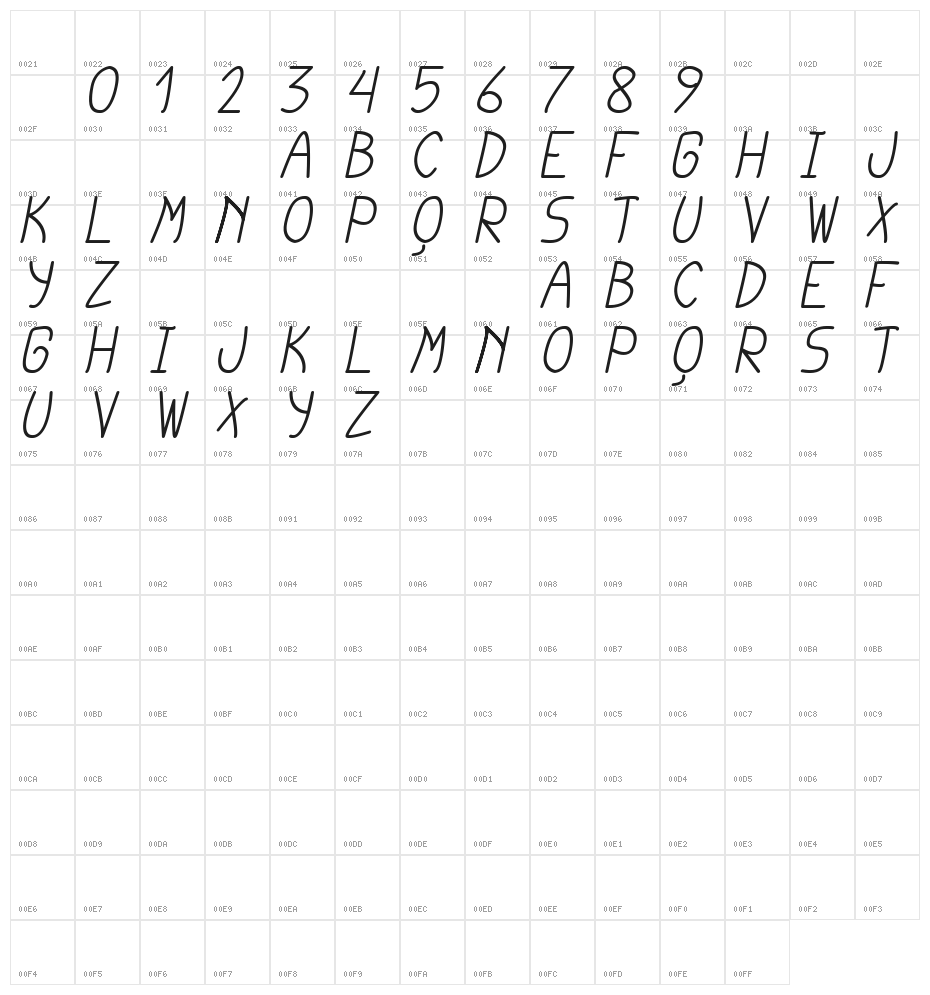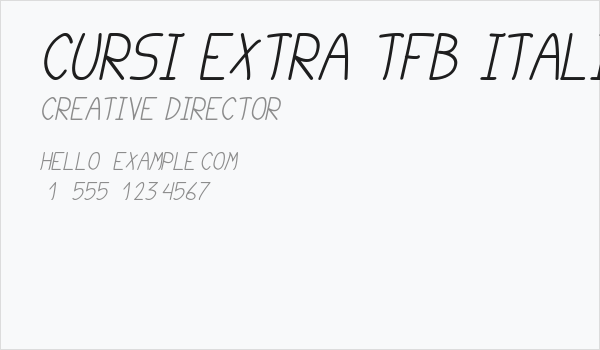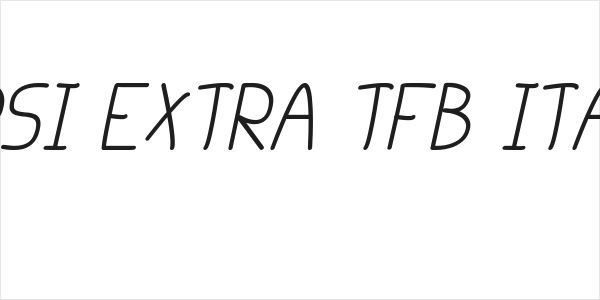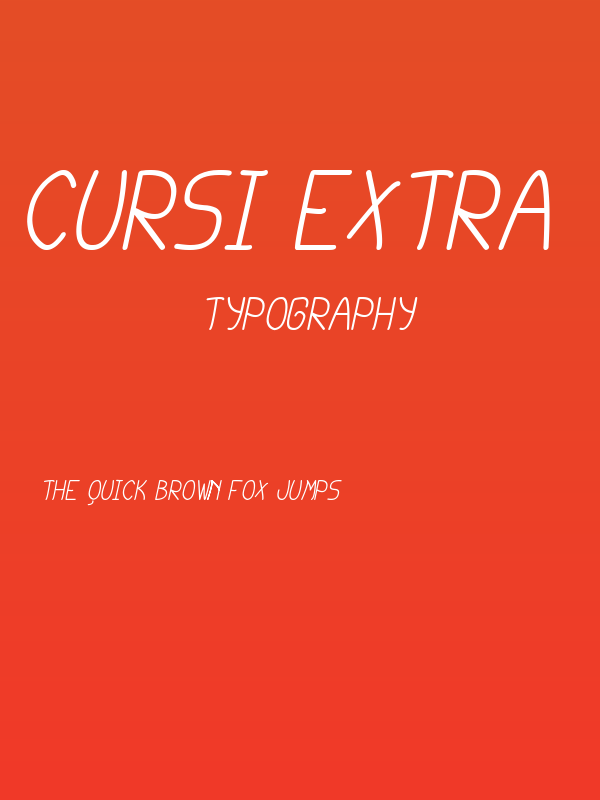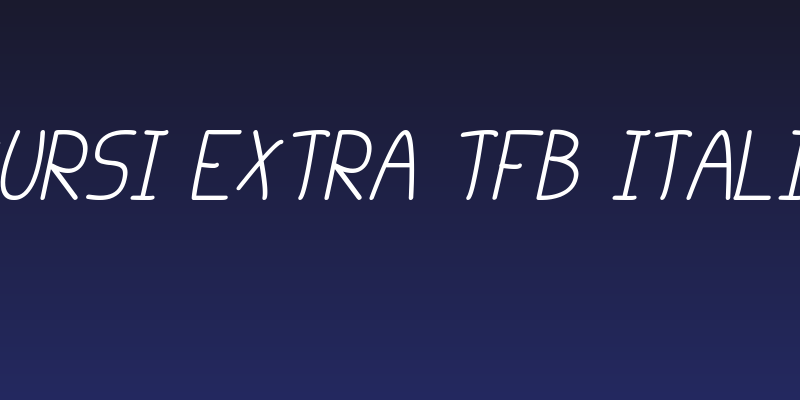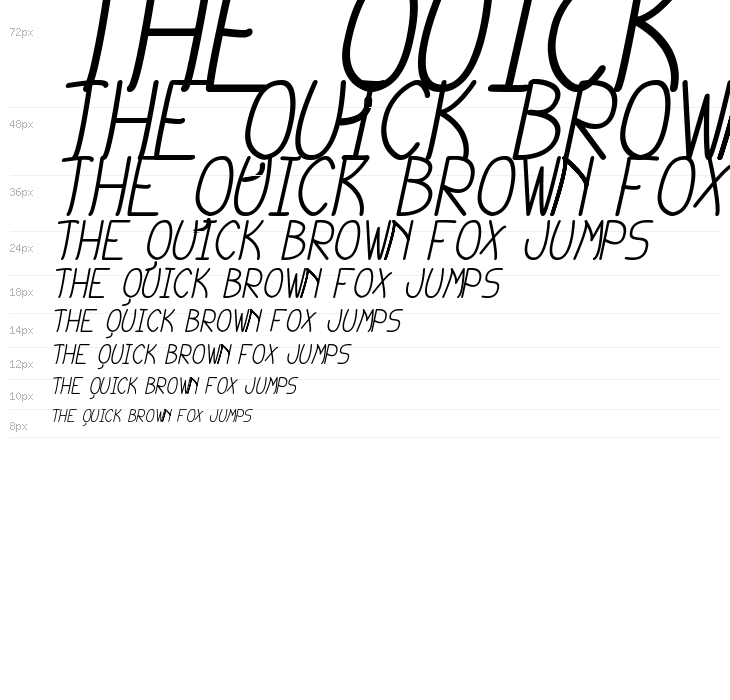
cursi extra tfb Italic Font
cursi extra tfb Italic Description
This font features a playful and casual handwritten style with a slight slant, giving it an informal and approachable appearance. The letters are elongated and slightly narrow, with smooth curves and rounded edges that enhance its friendly look. The uppercase and lowercase letters maintain a consistent style, while the numerals and special characters blend seamlessly with the overall design. The font's informal nature makes it suitable for projects that require a personal touch or a relaxed vibe.
| Use Case | Headlines, Informal text, Personal projects |
| Proposed Projects | Ideal for greeting cards, invitations, personal blogs, and casual branding. |